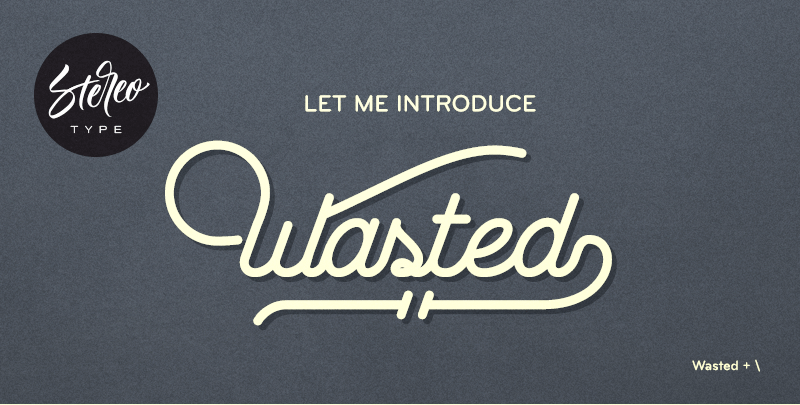
Wasted Font
Wasted by StereoType
It contains an exclusive font file with 14 different swashes and 2 underline styles to create your own lettering word style !